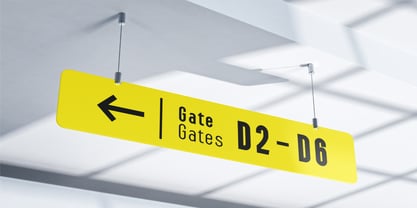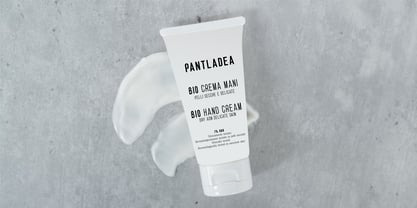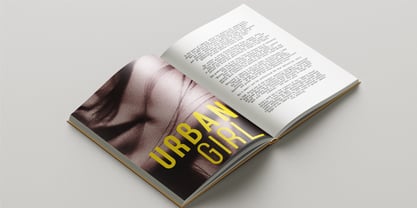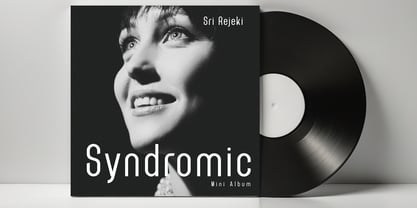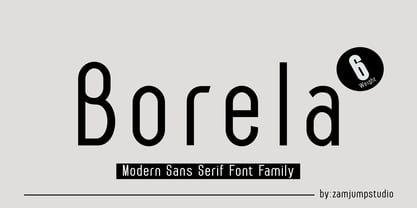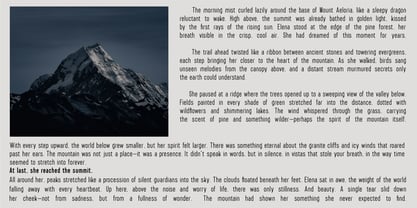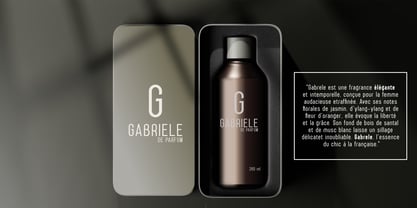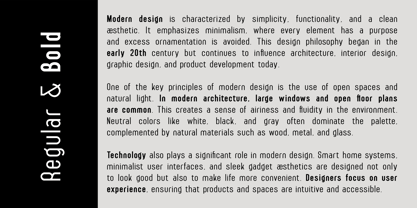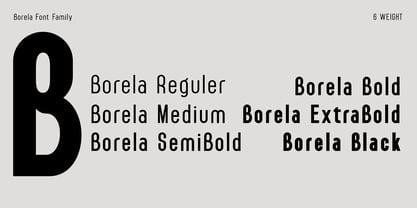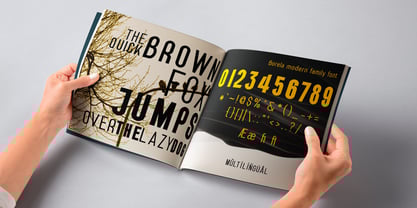
Borela
The Borela Font Family was designed by Zamjump, Ahmad Zamzami and published by Zamjump. Borela contains 6 styles and family package options. More about this family
Introducing BORELA – A Modern Sans Serif Typeface Family
Are you looking for a versatile typeface that balances clean modernity with strong visual impact?
Meet BORELA – a contemporary sans serif font family designed for maximum adaptability and elegance. BORELA comes in six carefully crafted weights, from Regular to Black, giving you full control over tone and emphasis in any design project.
Whether you're crafting a bold book title, setting readable body text, designing striking packaging, or creating standout branding and logos, BORELA has you covered. Its geometric structure and smooth letterforms make it perfect for both print and digital use.
From editorial layouts and signage to product labels and corporate identities, BORELA’s minimalist style and versatile weights make it an essential tool in any designer’s font library.
Elevate your visual storytelling with BORELA – where functionality meets modern aesthetic.